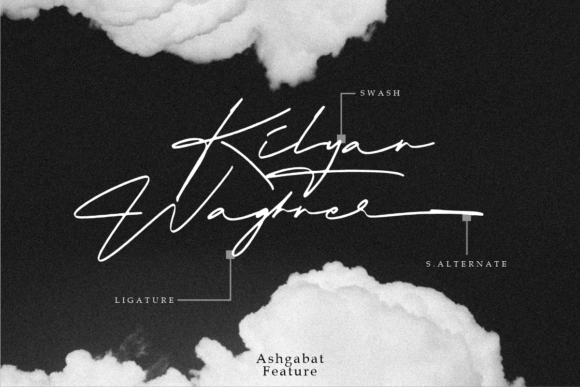
The Charm of Ashgabat Natural Signature Font
Have you ever been in the middle of a design project, and suddenly, you just can’t seem to find the right font? I recall a particularly frustrating moment when I was working on a wedding invitation design. My client wanted something elegant, yet charming, and I was determined to deliver. That’s when I stumbled upon the Ashgabat Natural Signature Font. It was love at first sight! 💕
A Honest Review
- ✨ Elegant and charming feel, perfect for wedding invitations, thank you cards, and greeting cards
- ✅ Beautiful handwritten touch that adds a personal feel to any design
- 💫 Works well for quotes, logos, and business cards, making it a versatile font
- 🌈 The natural, flowing script makes it easy to read and understand
- 🤔 Some users might find the font a bit too ornate for very formal or corporate designs
- ⚠️ As with many script fonts, it may not work well at very small sizes or in designs with a lot of visual noise
Ashgabat Natural Signature Font comes with a range of OpenType features and glyphs that can elevate your designs. These include:
- Ligatures: These special character combinations can add a touch of sophistication to your text
- Stylistic alternates: These allow you to switch between different font styles, adding more variety to your design
- Glyphs: These special characters can be used to add decorative elements to your text
The Designer Inspiration Behind Ashgabat Natural Signature Font
The Ashgabat Natural Signature Font was inspired by the traditional calligraphy of Central Asia. The font’s creator aimed to capture the elegance and charm of handwritten scripts, while making it accessible for modern designs. The result is a font that’s both timeless and trendy.
A: While Ashgabat Natural Signature Font is beautiful, it’s best suited for headings and titles. Its elegant feel might not work as well for longer body text.